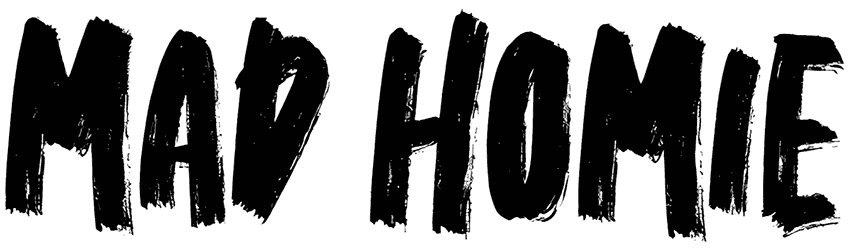
Mad Homie Font
If you still can’t find a brush font with a scary and exciting theme, add Mad Homie to your font collection right now. Because this font does not contain lowercase letters, it is not suitable for ordinary texts like books or letters. But it is a good handwritten font for headlines on greeting cards, branding, business cards, and posters.